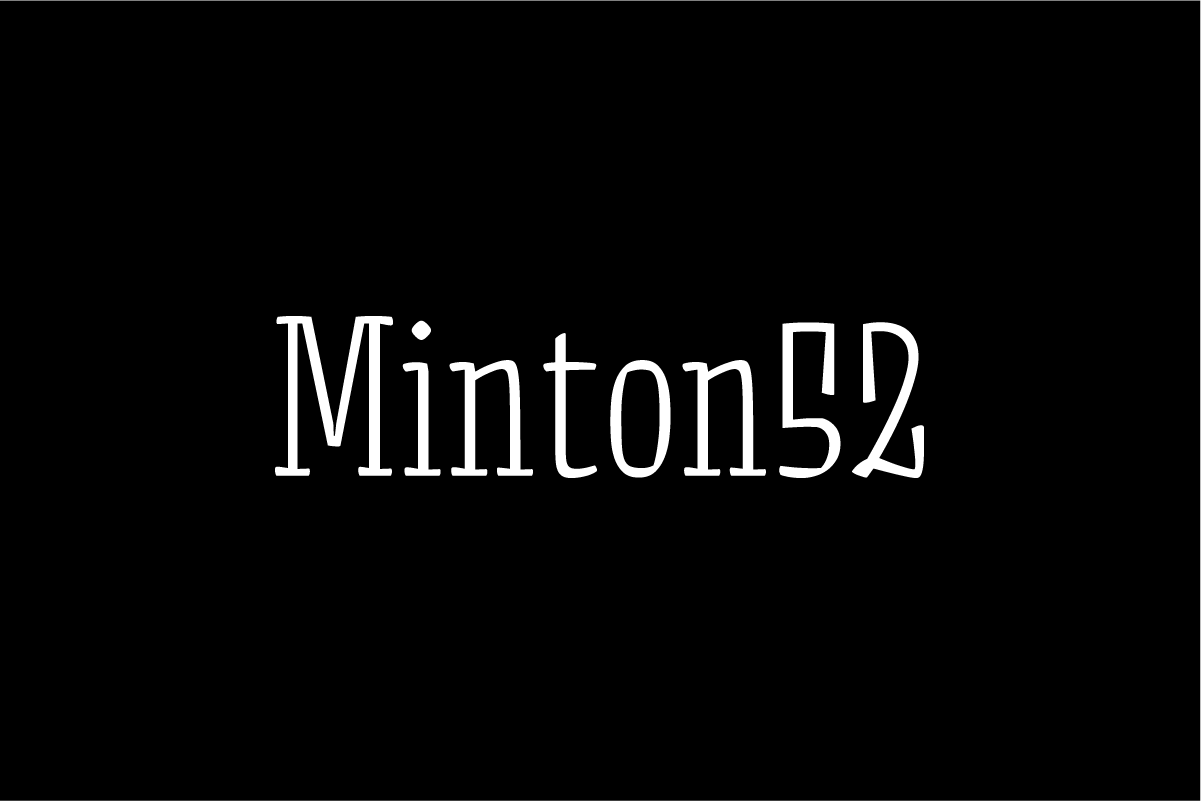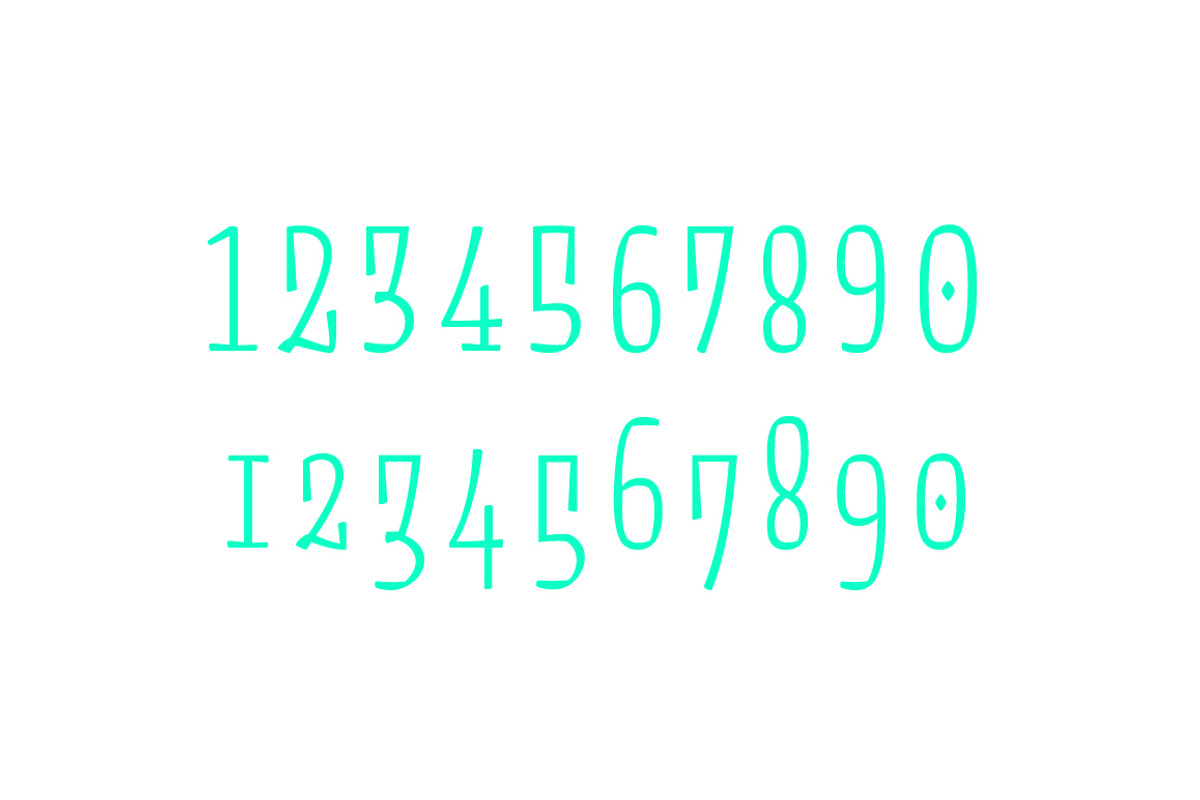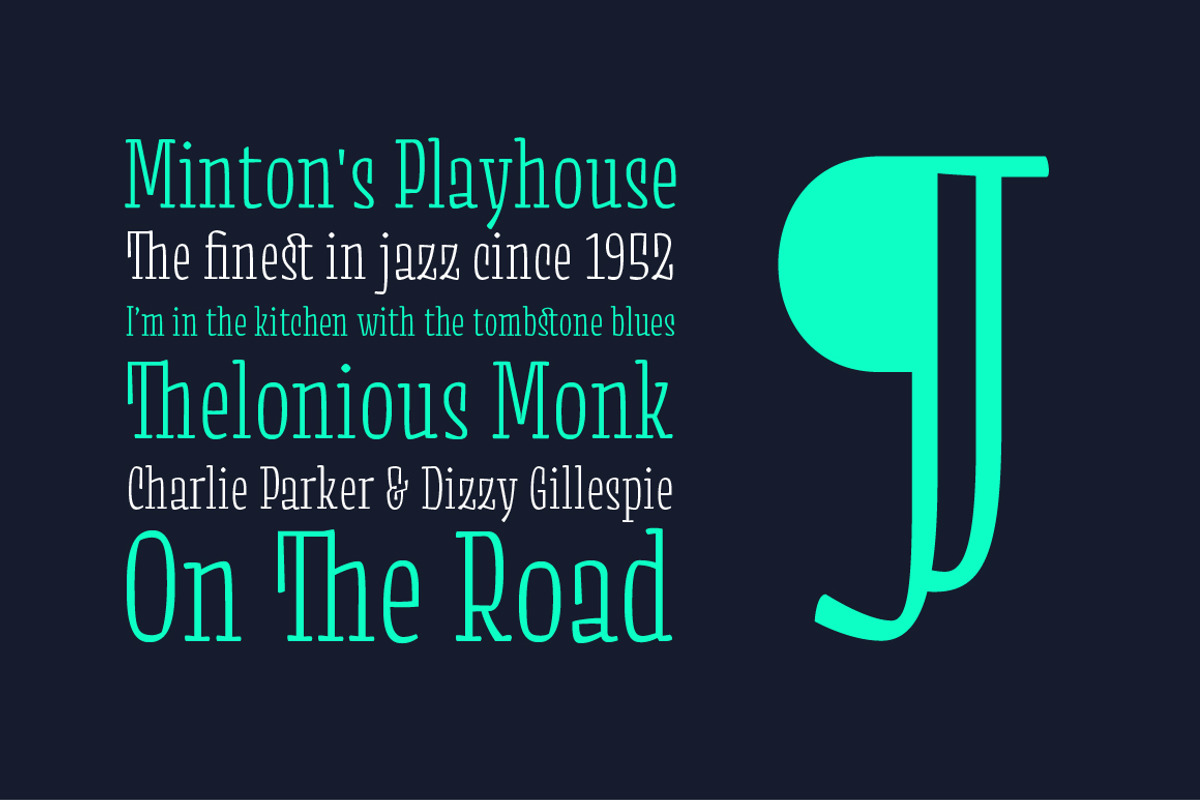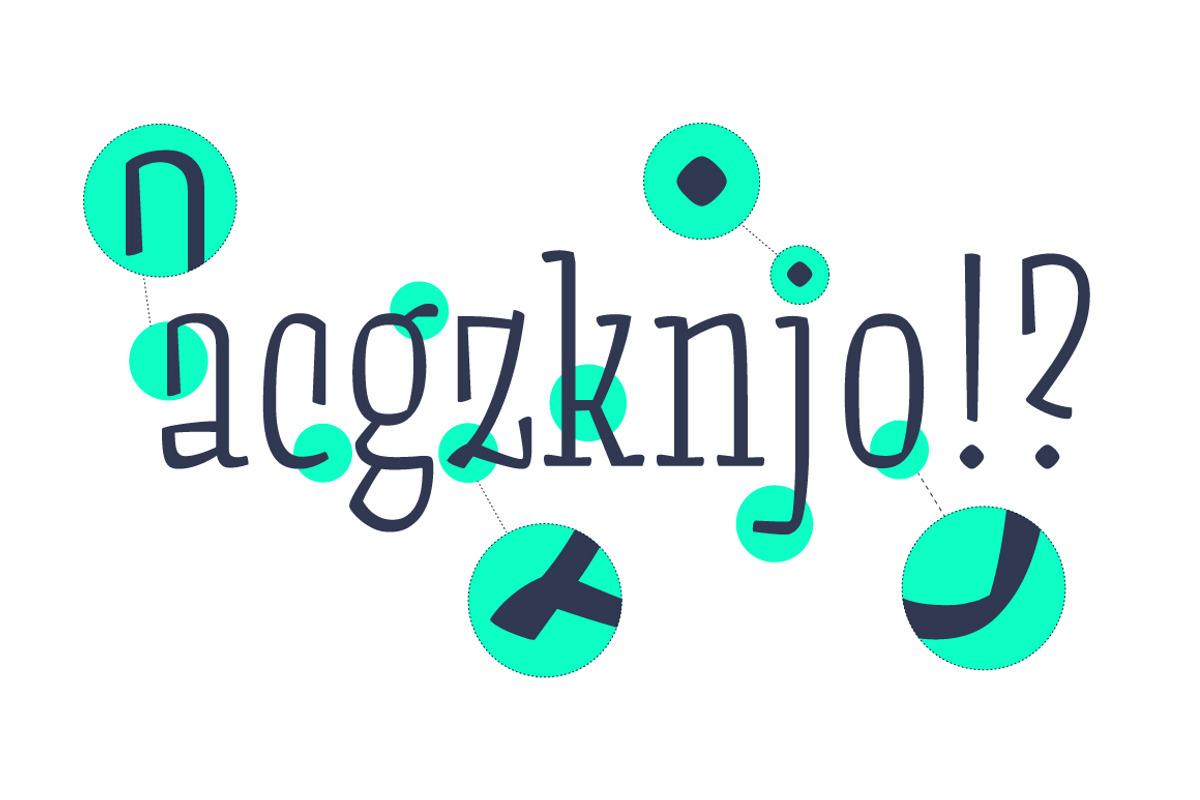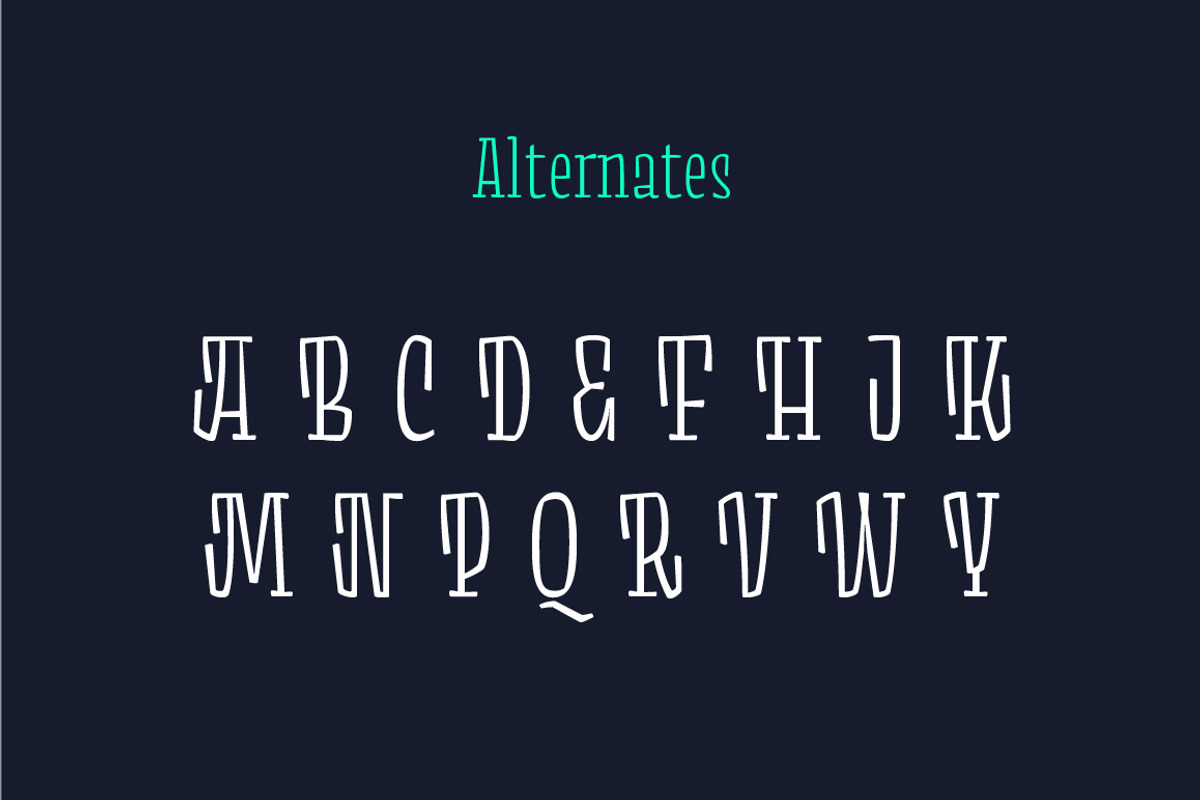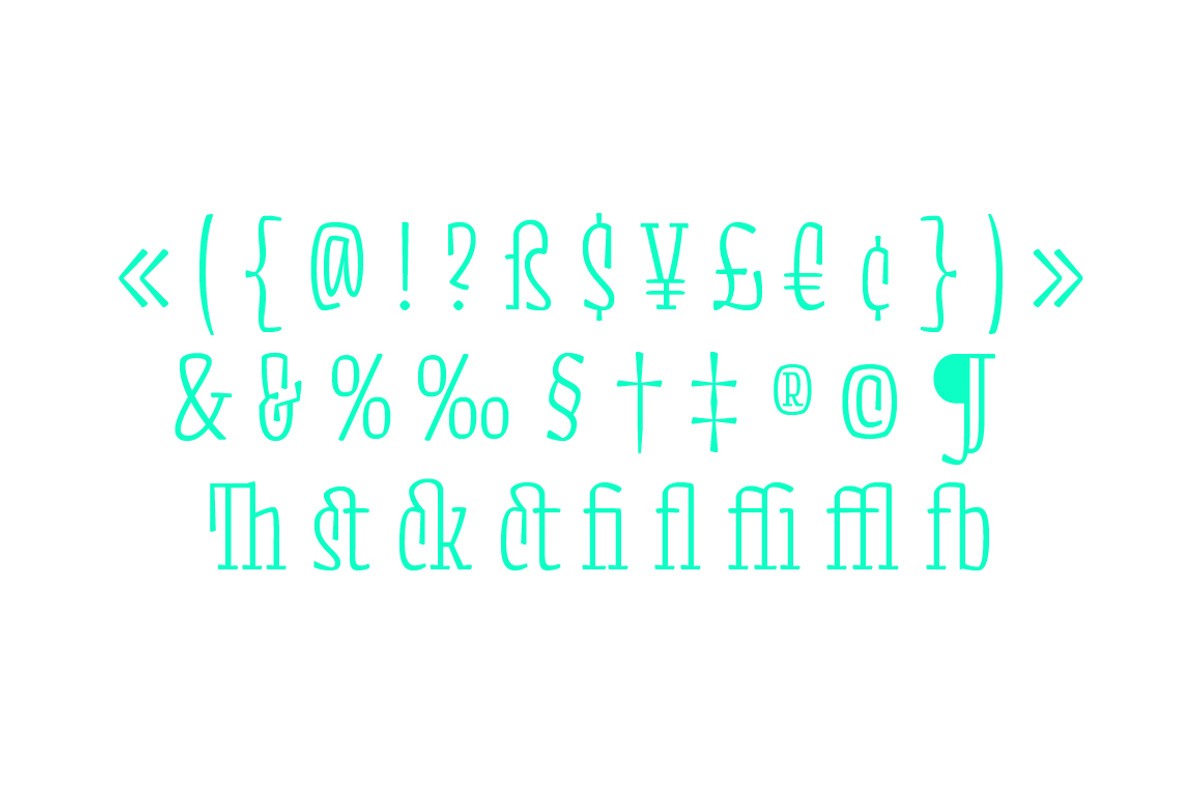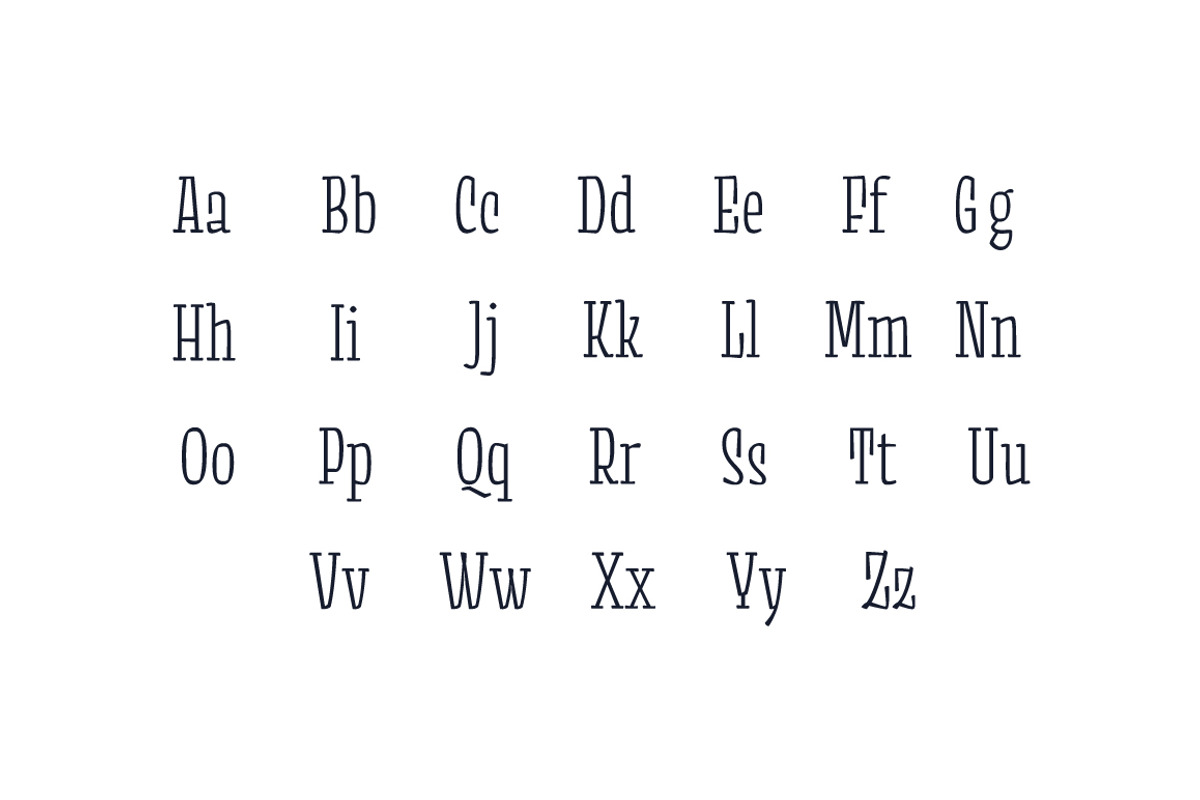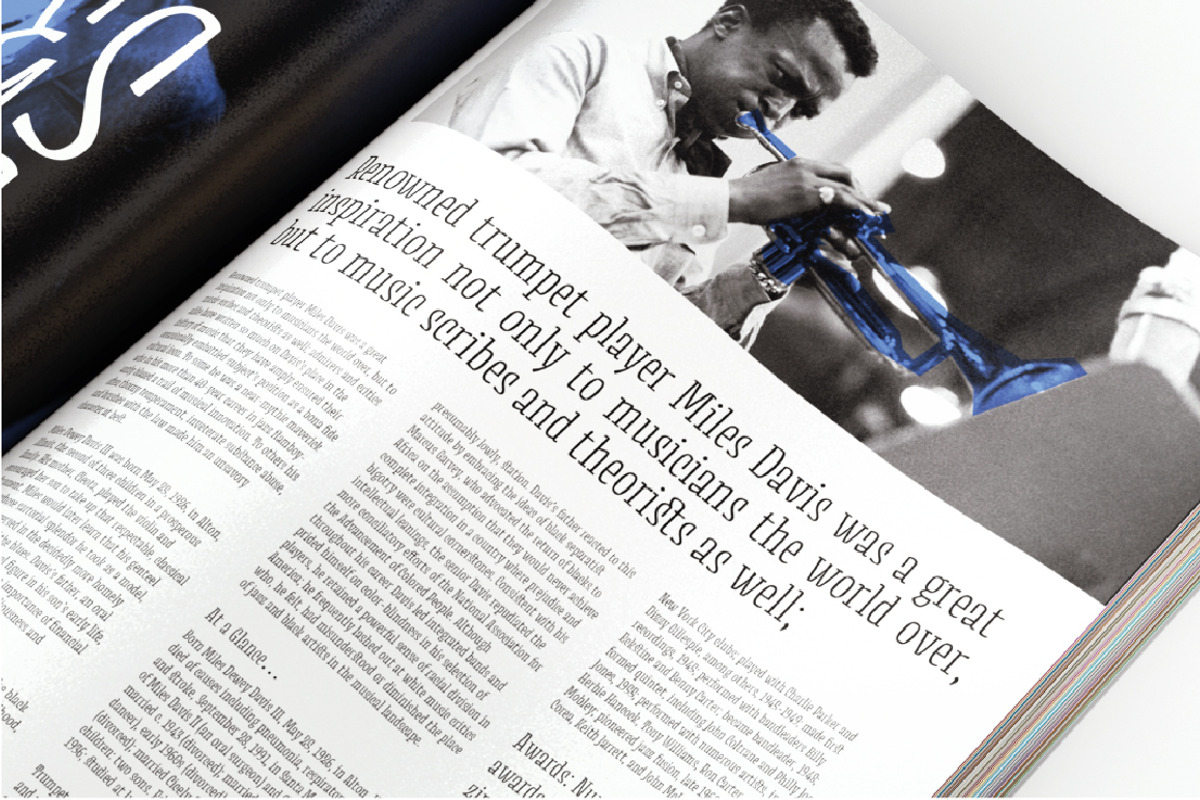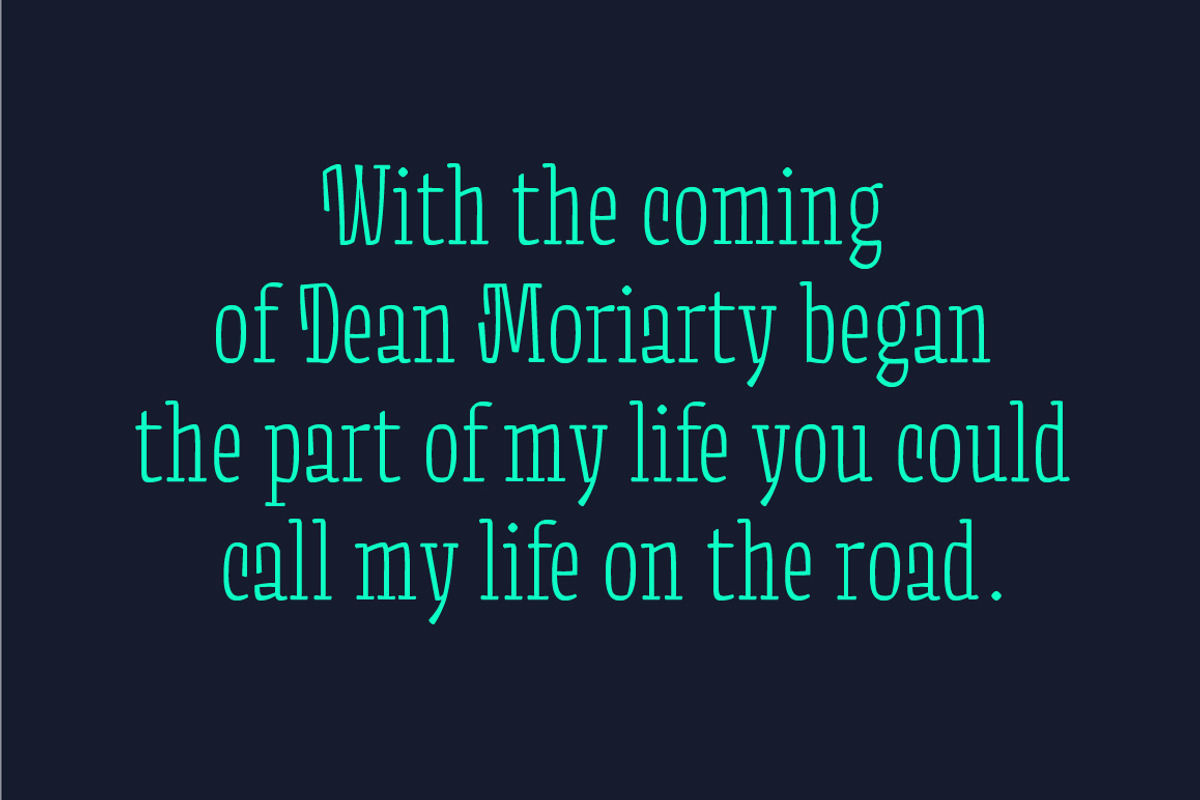
Minton52 font
Minton52 is the serif display font with narrow proportions and low contrast. Includes ligatures, old style numerals and some capitals alternates. The archive contains .otf and .ttf files.